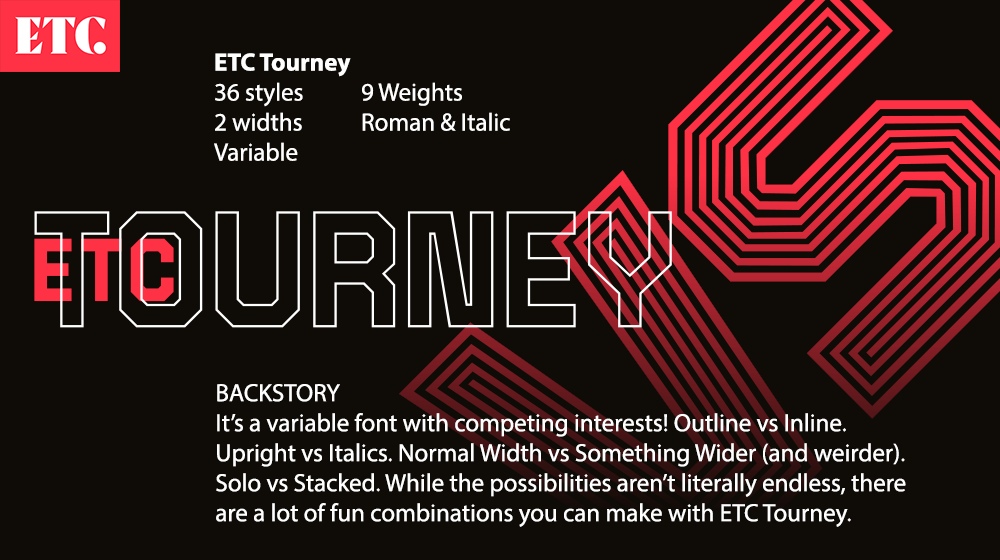
ETC Tourney Font
ETC Tourney Font is perfect for sports branding projects, competitive gaming logos, tournament signage, athletic team merchandise, championship event materials, esports tournament graphics, sports bar signage, and dynamic competition advertising. This commanding typeface works exceptionally well in both digital applications and print media where competitive spirit and championship excellence are central to the visual message.
What makes ETC Tourney Font so exciting is its perfect balance of athletic power and competitive sophistication that instantly communicates tournament-level excellence and championship quality. The font features bold, dynamic letterforms with strong geometric construction, athletic proportions, and victory-inspired details that create an immediate sense of competition and achievement. Its commanding presence and sports-oriented personality make it ideal for brands seeking to establish dominance in competitive markets while appealing to audiences who value performance, teamwork, and winning mentality.
The ETC Tourney Font family includes multiple weight variations from regular to ultra-bold, along with condensed styles and championship-inspired alternates. Each style maintains the typeface's competitive character while offering comprehensive character sets including bold numerals, sports-focused punctuation marks, and special symbols designed to enhance athletic and gaming communications across diverse competitive platforms.
This remarkable typeface represents the perfect convergence of sports culture and professional typography designed for maximum competitive impact. Whether you're developing esports brand identities, creating championship marketing materials, or designing tournament presentations, ETC Tourney Font Free Download delivers the winning energy and versatility needed to dominate attention in competitive environments. The font's tournament aesthetic makes it particularly effective for sports organizations, gaming companies, athletic brands, and events celebrating competitive excellence and championship achievements.
The precisely crafted athletic details and optimized performance rendering in ETC Tourney Font ensure powerful visual impact while maintaining clear communication across all competitive platforms and applications. Its championship presence makes it ideal for team names, tournament titles, and victory branding where its full competitive character can create unforgettable impressions and establish immediate association with excellence, achievement, and tournament-level performance.